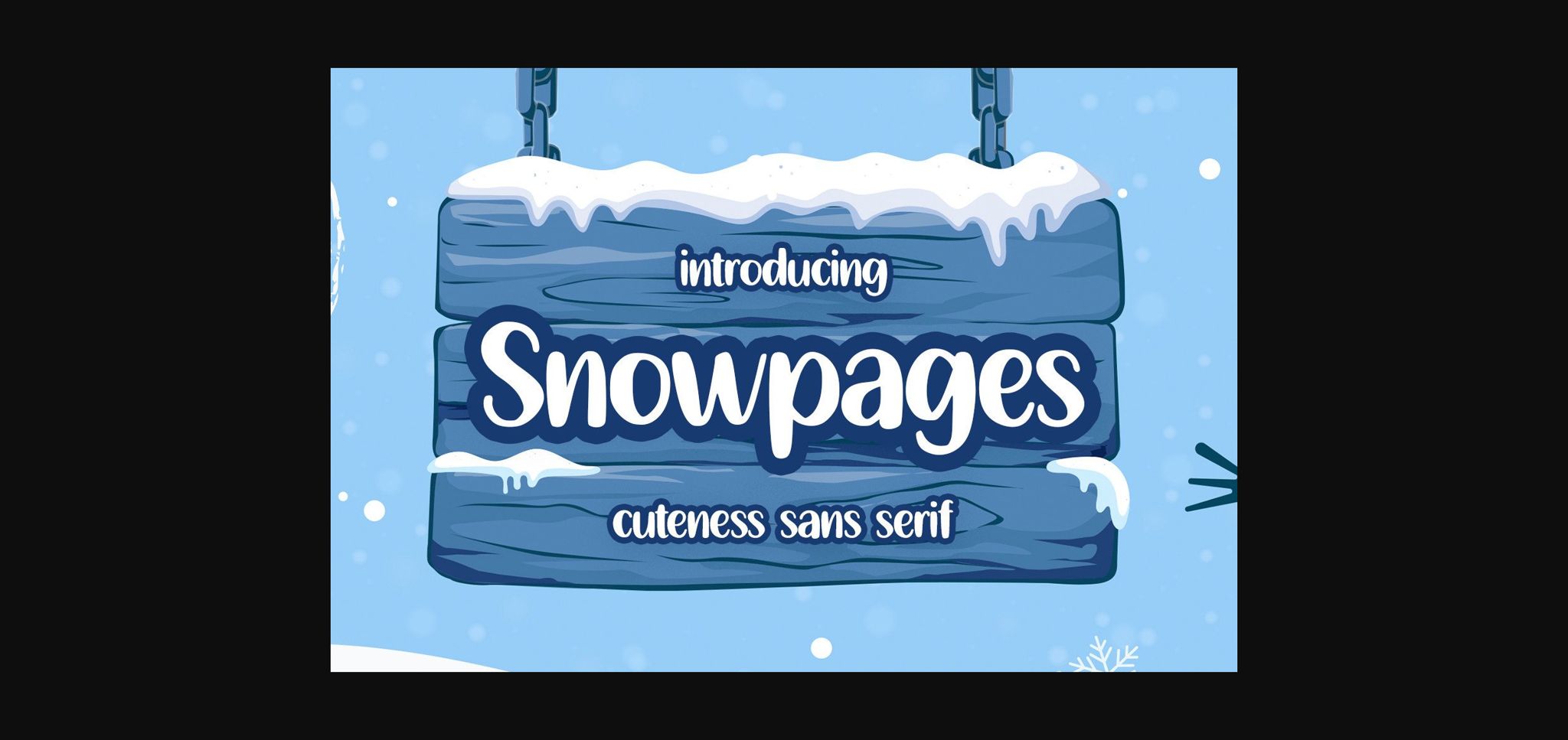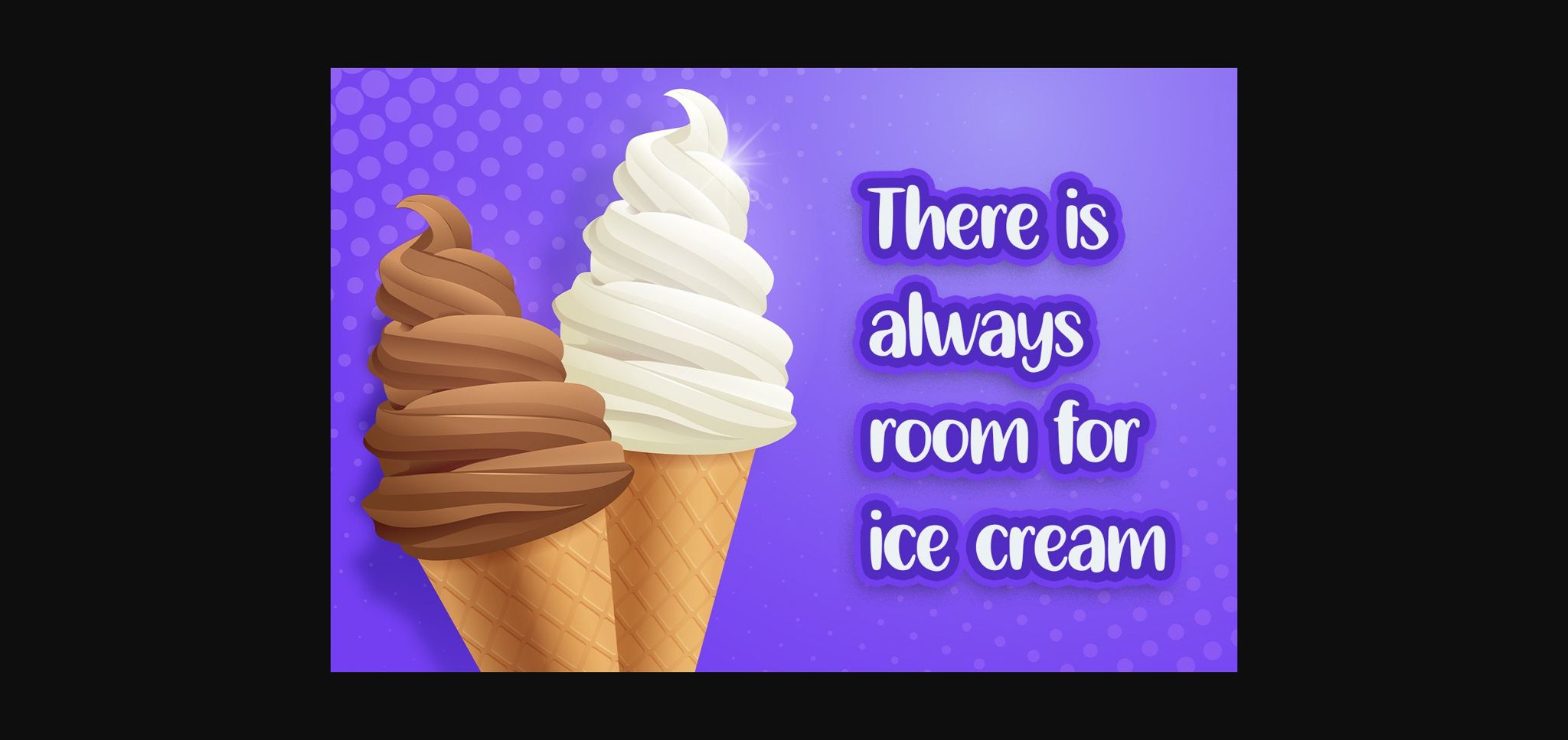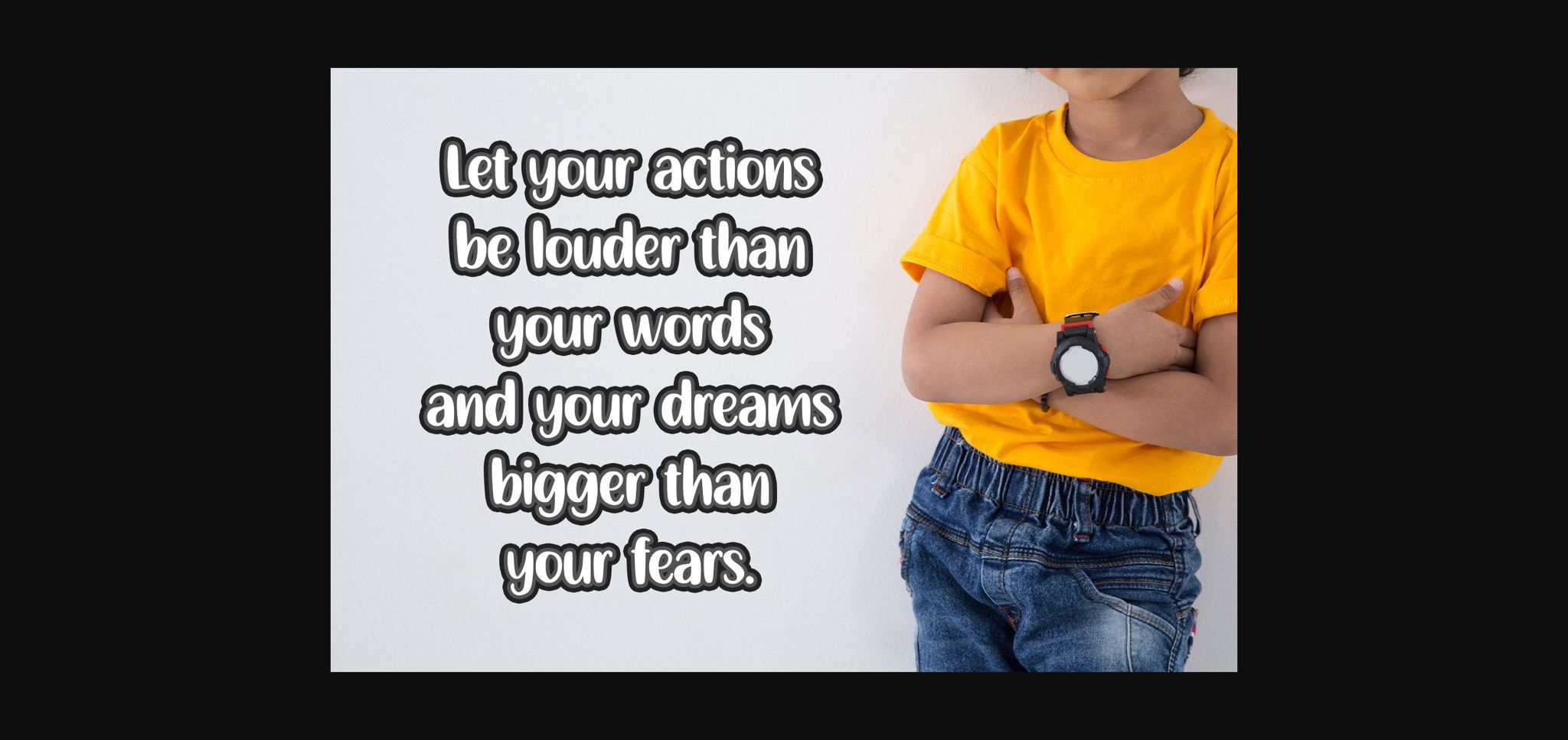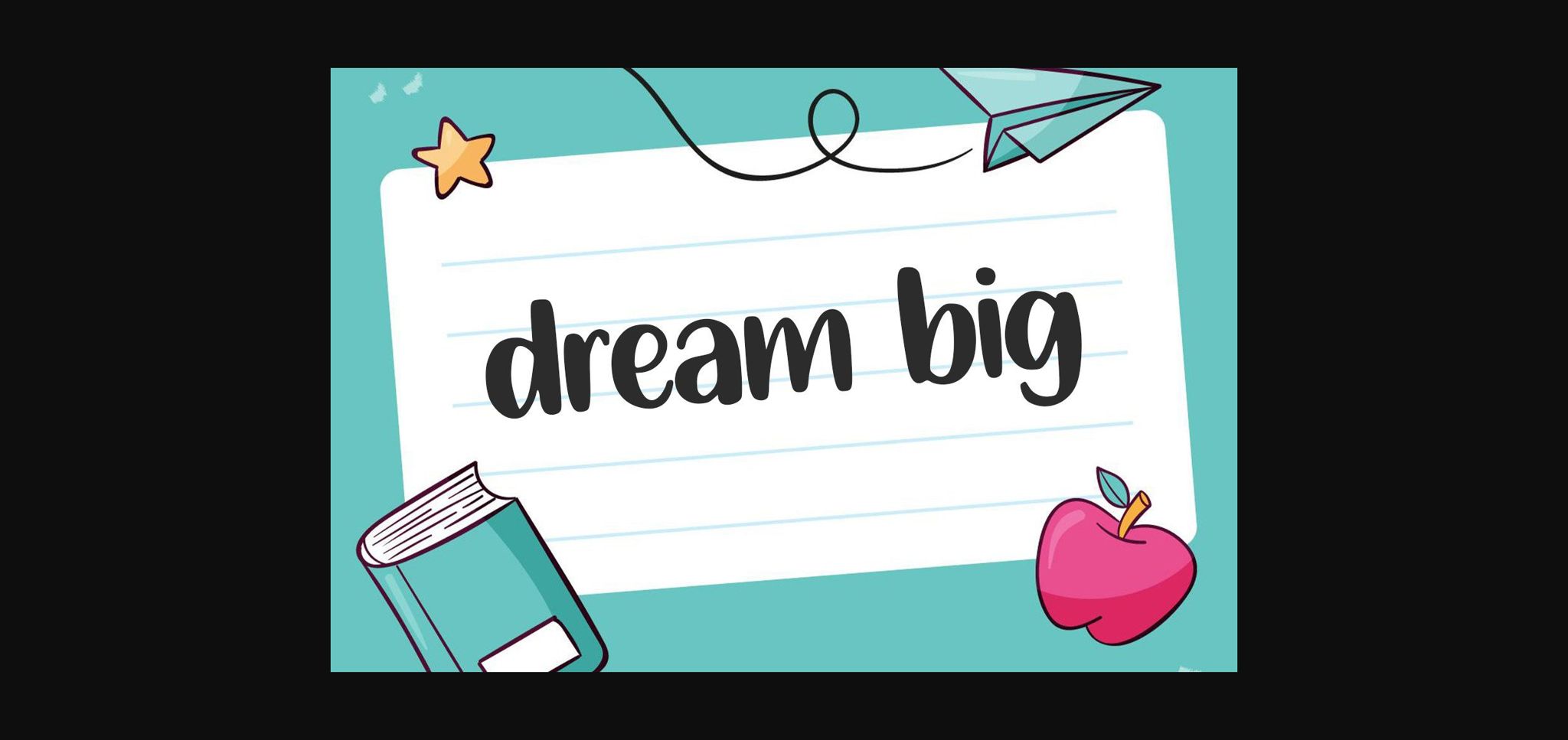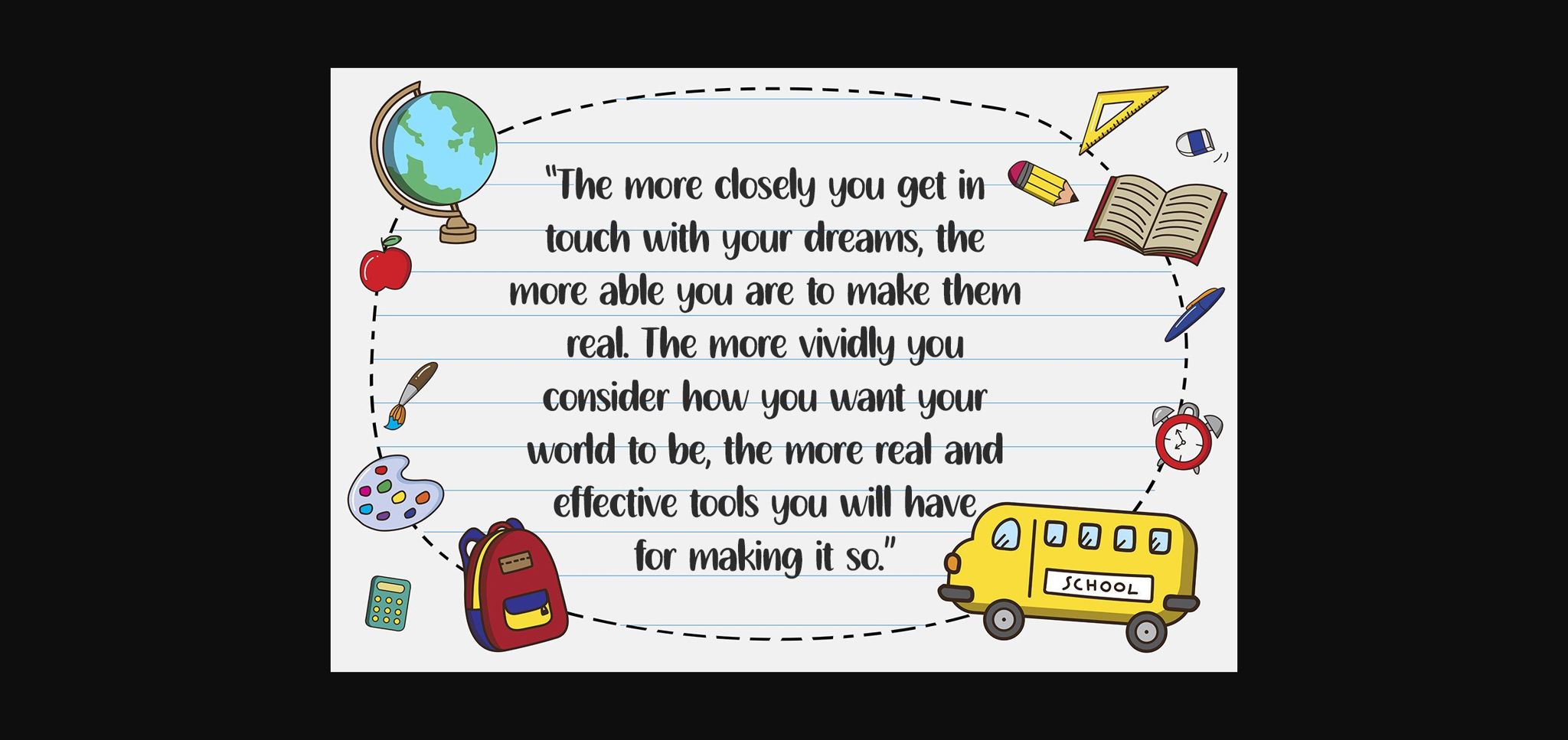
Snowpages Font
About Snowpages Font
Snowpages is a cute and playful sans serif font. Cheerful and bright, this font is suitable for a wide spectrum of applications.